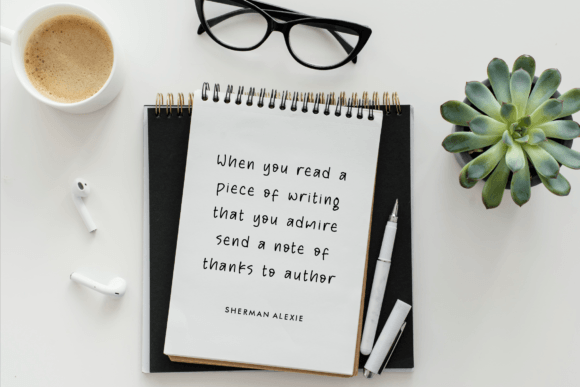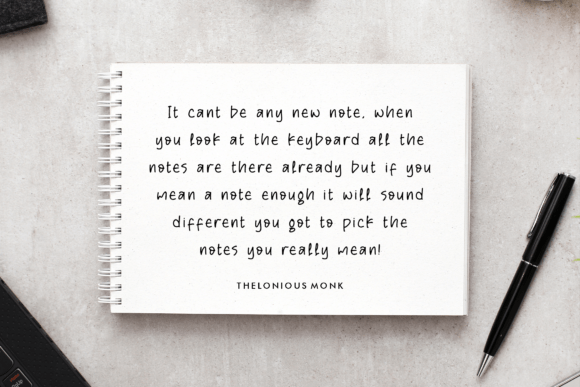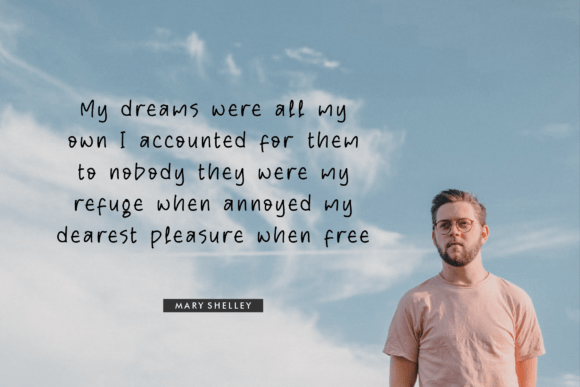
Introduction to Grainful Notes Font
Have you ever sat at your desk, surrounded by scribbled notes and coffee-stained drafts, and felt a spark of inspiration? For designers, those moments of creative clarity are precious, and the right tools can make all the difference. That’s why we’re excited to introduce you to Grainful Notes Font – a beautiful, handwritten typeface that’s perfect for adding a touch of personality to your next creative project.
With Grainful Notes Font, you’ll have access to a high-quality, free download that’s ideal for logos, branding projects, and more. Its transparent background makes it easy to layer over images or other design elements, and its unique, handwritten style adds a touch of whimsy to any design. Whether you’re working on a special event invitation or a product packaging design, Grainful Notes Font is a valuable resource that’s sure to elevate your creative work.
Key Features of Grainful Notes Font
- High-quality design: Grainful Notes Font offers a unique and stylish aesthetic perfect for creative projects.
- Transparent background: The font’s transparent background allows for easy layering and customization in design projects.
- Unique characteristics: The font’s grainy texture and note-like design elements add a touch of creativity and whimsy to any project.
Honest Review: Grainful Notes Font
As a designer, I’m always on the lookout for high-quality, free design resources to elevate my creative projects. The Grainful Notes Font is one such resource that caught my attention.
What works well: ✨ The Grainful Notes Font offers a unique, hand-written feel that adds a personal touch to any design project. Its high quality and transparent background make it perfect for overlaying on images or using as a standalone element. The font is also incredibly versatile, making it suitable for a wide range of creative projects, from logos to social media graphics.
- Unique, hand-written feel
- High quality and transparent background
- Versatile and suitable for various creative projects
Overall, I’m impressed with the Grainful Notes Font. Its unique feel and high quality make it a valuable addition to any designer’s toolkit. With a little creativity, you can unlock its full potential and take your design projects to the next level.
Tips for Getting the Most Out of Grainful Notes Font
For a high-quality design, use Grainful Notes Font on a transparent background to create a clean and minimalist look. You can also experiment with different font sizes and styles to add visual interest to your design. Additionally, consider pairing Grainful Notes Font with other free design resources to create a unique and creative project.
Grainful Notes Font is perfect for a variety of creative projects, including wedding invitations, party decorations, and social media graphics. Its high-quality design and transparent background make it an ideal choice for any design project where you want to add a touch of elegance and sophistication.